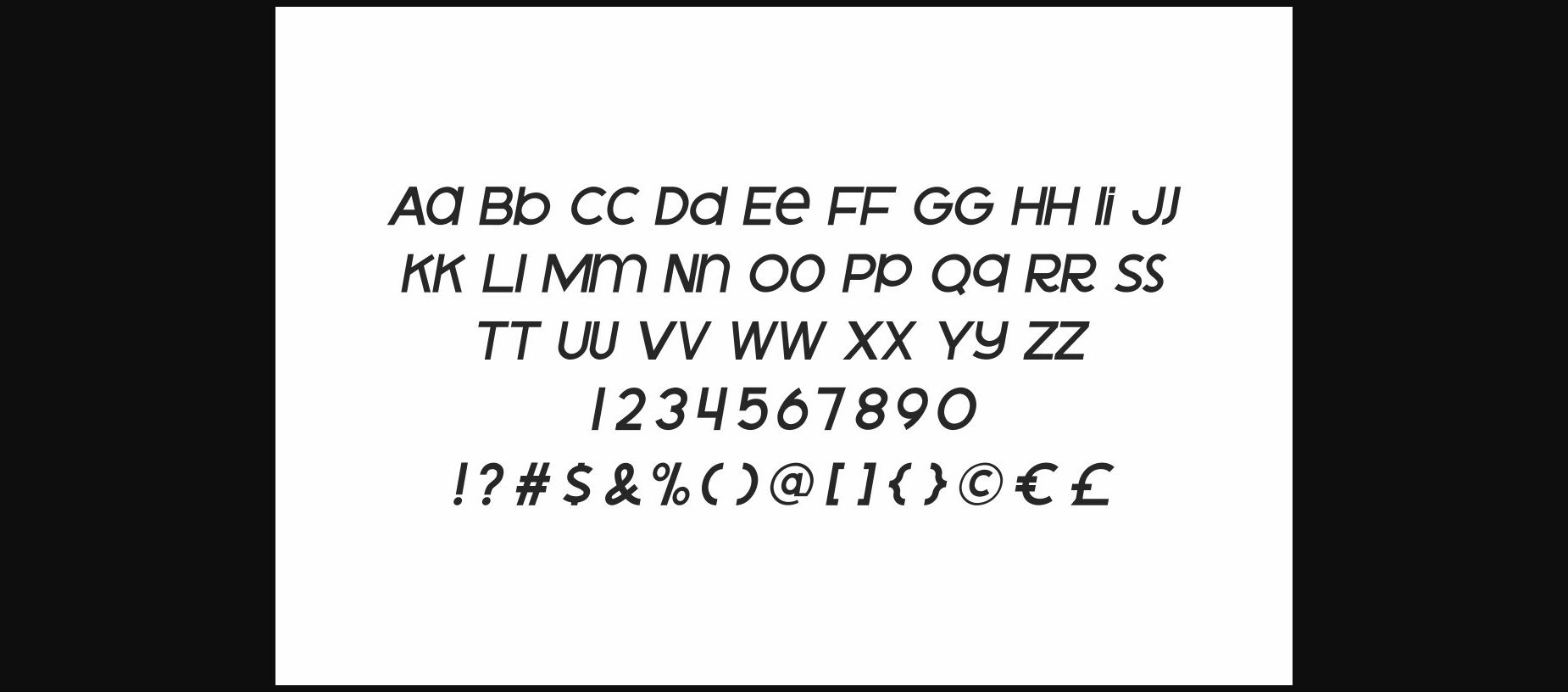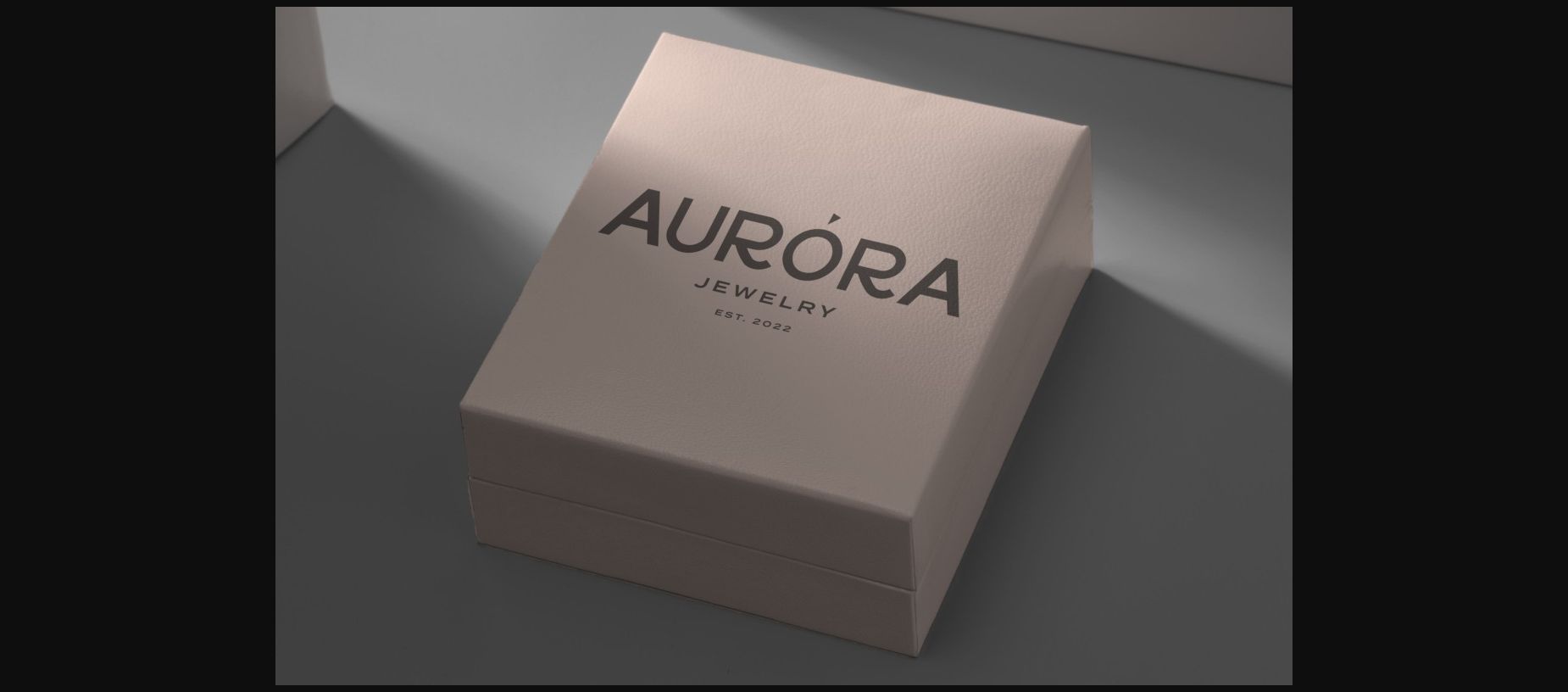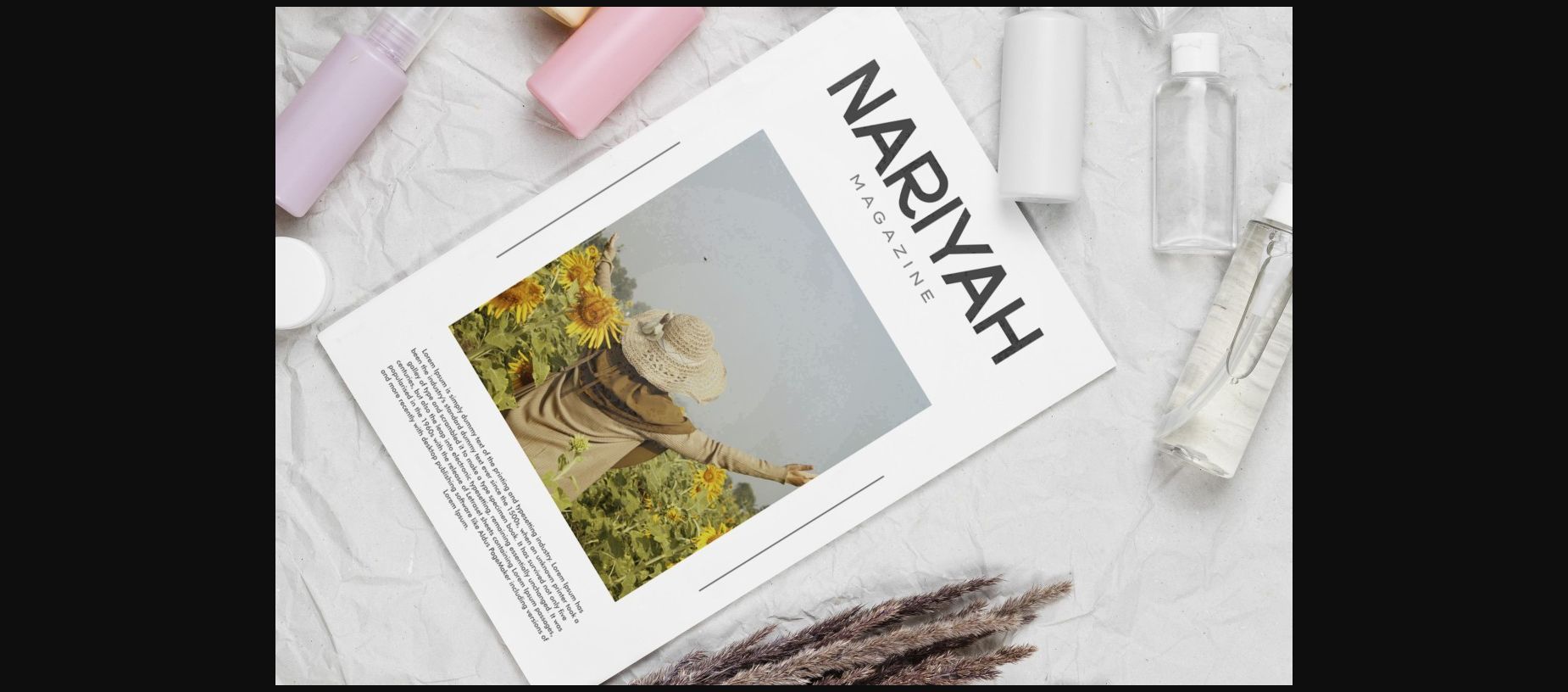
About Retro Greathe Font
Retro Greathe Font is a modern and unique sans serif display font with two style options: Regular and Italic. The font is perfect for many industries, such as art gallery, apparel, cosmetic, event or wedding organizer, fashion, homeware, jewelry, printing, publishing, restaurant, and more!